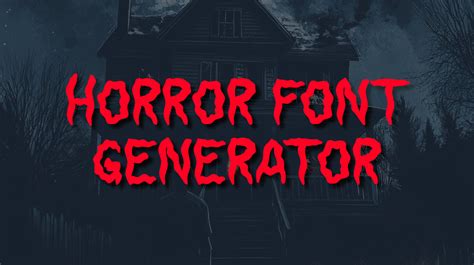
Spooky Font Generator. Web horror, fear and panic fonts. You can copy and paste these spooky symbols.
Transform your text into eerie and captivating visuals, perfect for haunted invitations, horror. You can copy and paste these spooky symbols. This, as you may have noticed, is a creepy text generator. Web horror, fear and panic fonts. Web spooky fonts are good for designs where you want to create a feeling of fear or unease. If you are the bravest, do not miss our most horrible and dark fonts for you! If you are the bravest, do not miss our most horrible and dark fonts for you!. It converts normal text into creepy text with all sorts of weird and distorted markings (ll̵̜̈́i̵̙̽k̶͚̎ȅ̷͇ ̷̙̈t̸̙̃h̸͙̓į̴͗s̵̺̿).
Web horror, fear and panic fonts. Transform your text into eerie and captivating visuals, perfect for haunted invitations, horror. Web spooky fonts are good for designs where you want to create a feeling of fear or unease. If you are the bravest, do not miss our most horrible and dark fonts for you! It converts normal text into creepy text with all sorts of weird and distorted markings (ll̵̜̈́i̵̙̽k̶͚̎ȅ̷͇ ̷̙̈t̸̙̃h̸͙̓į̴͗s̵̺̿). You can copy and paste these spooky symbols. If you are the bravest, do not miss our most horrible and dark fonts for you!. This, as you may have noticed, is a creepy text generator.